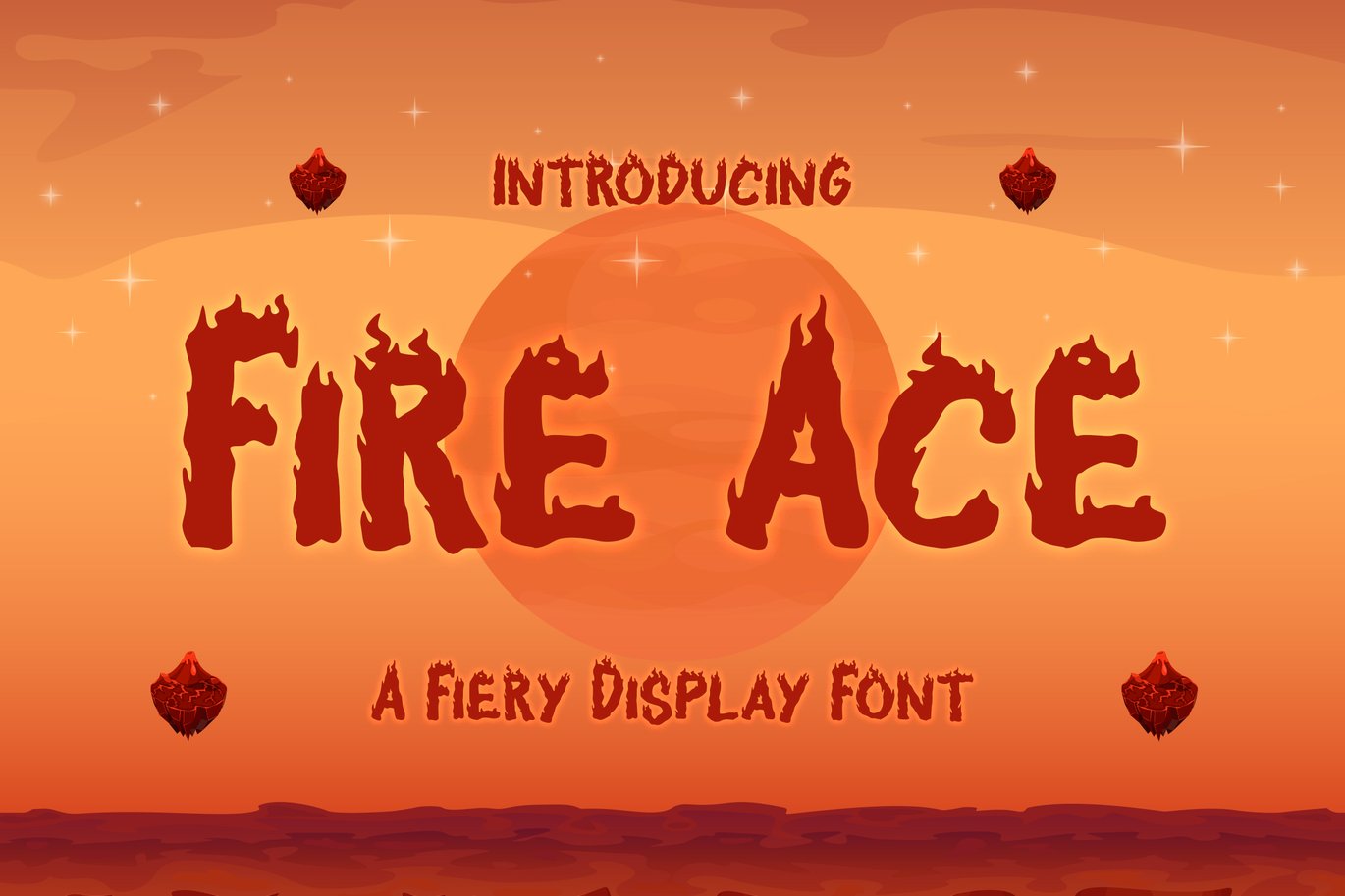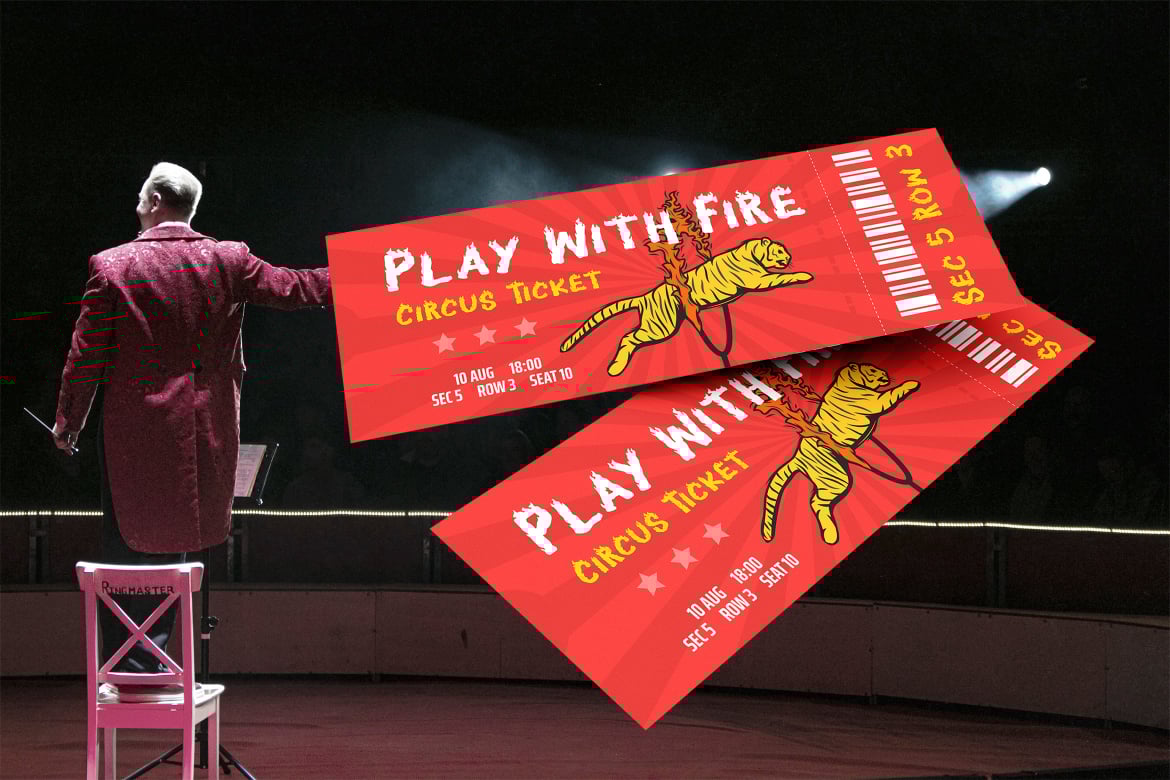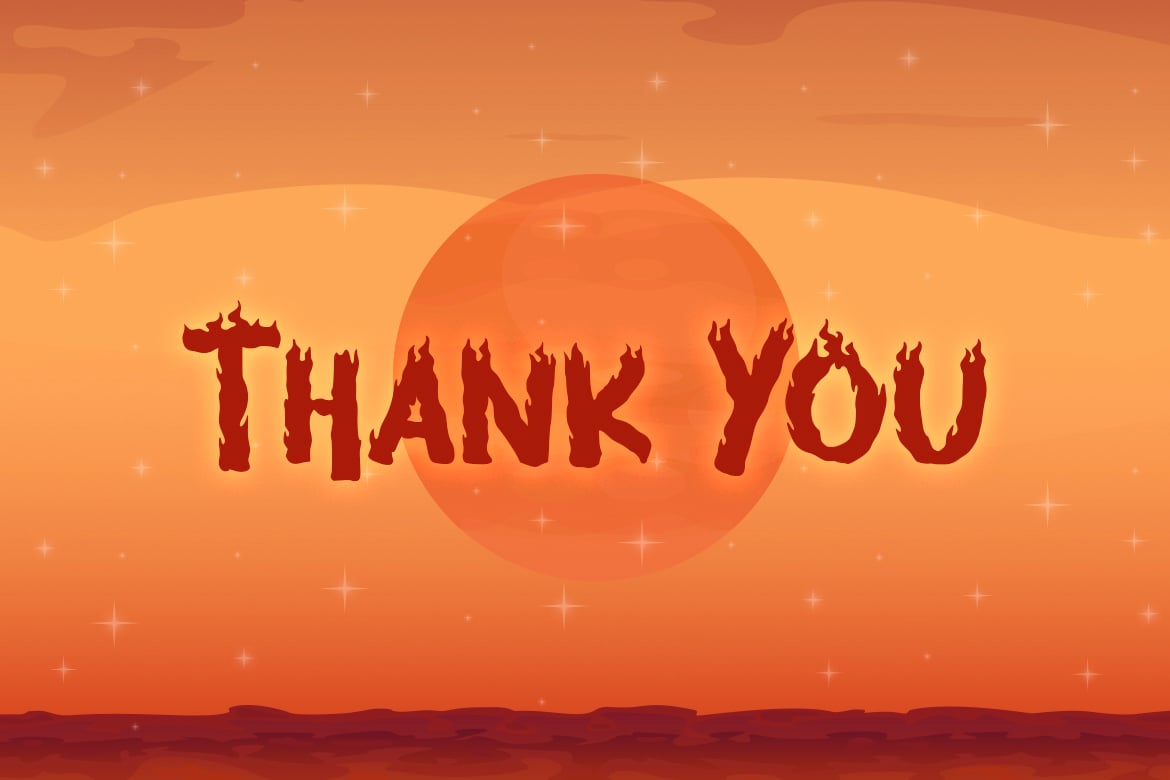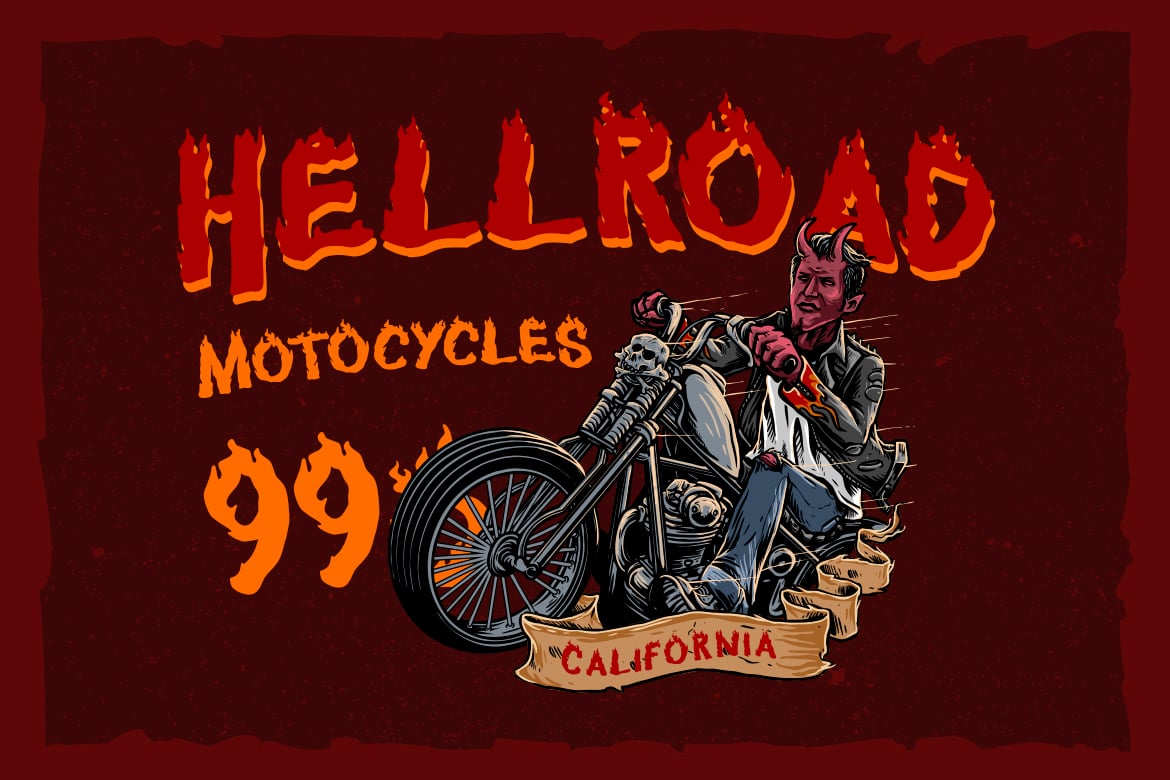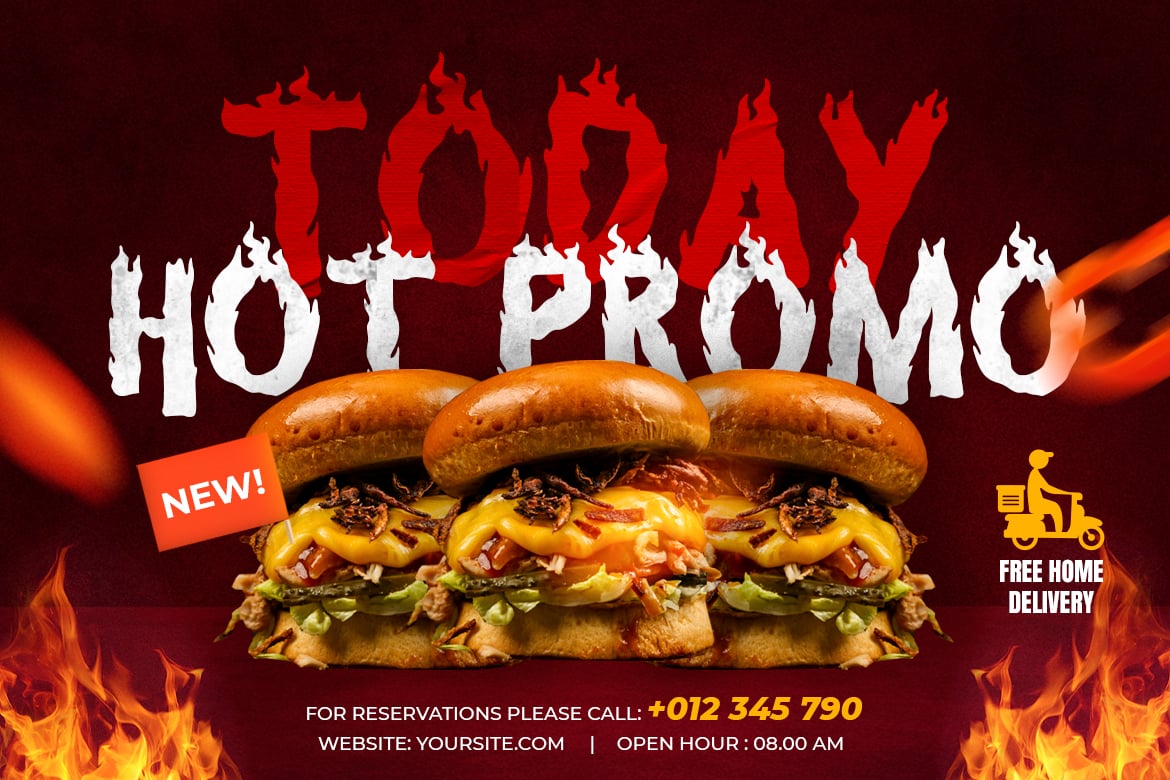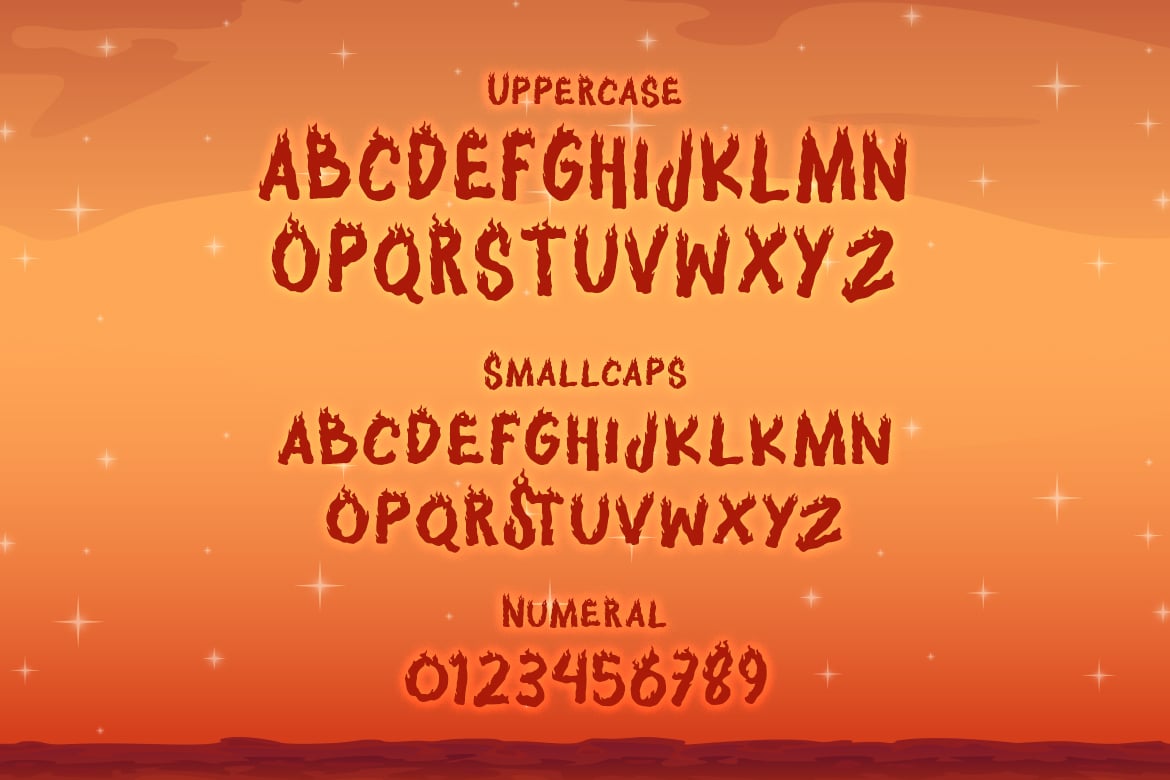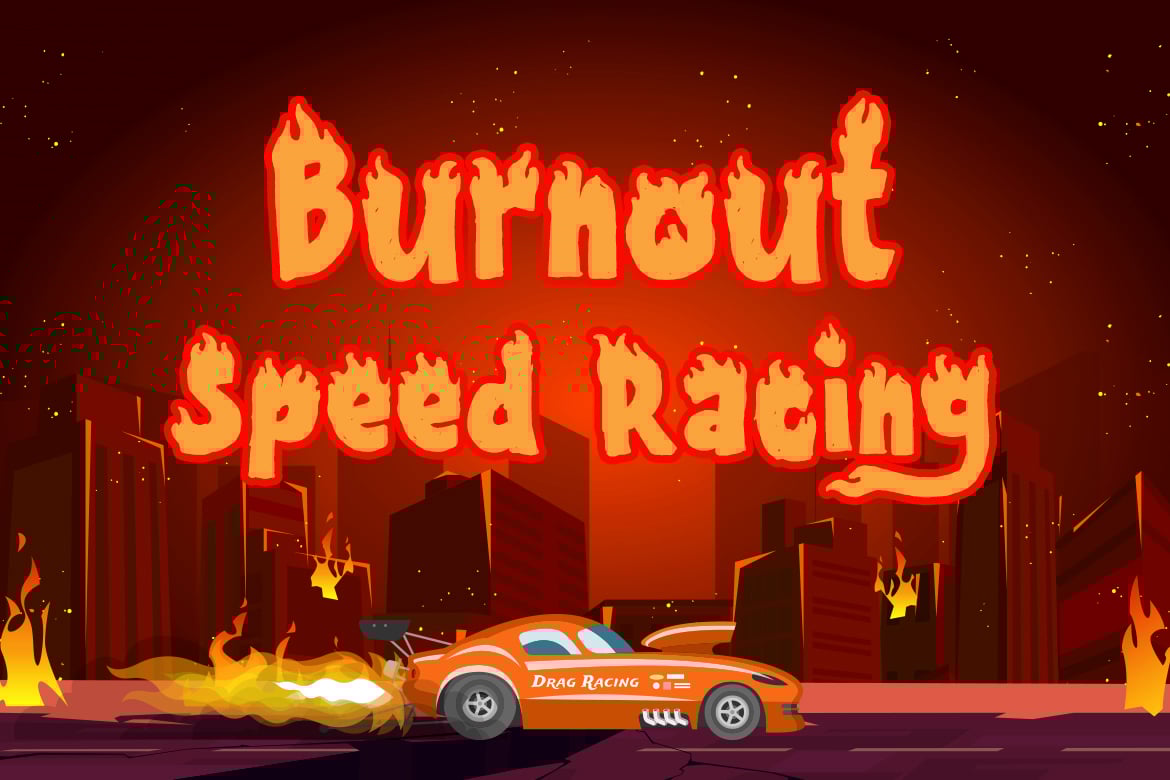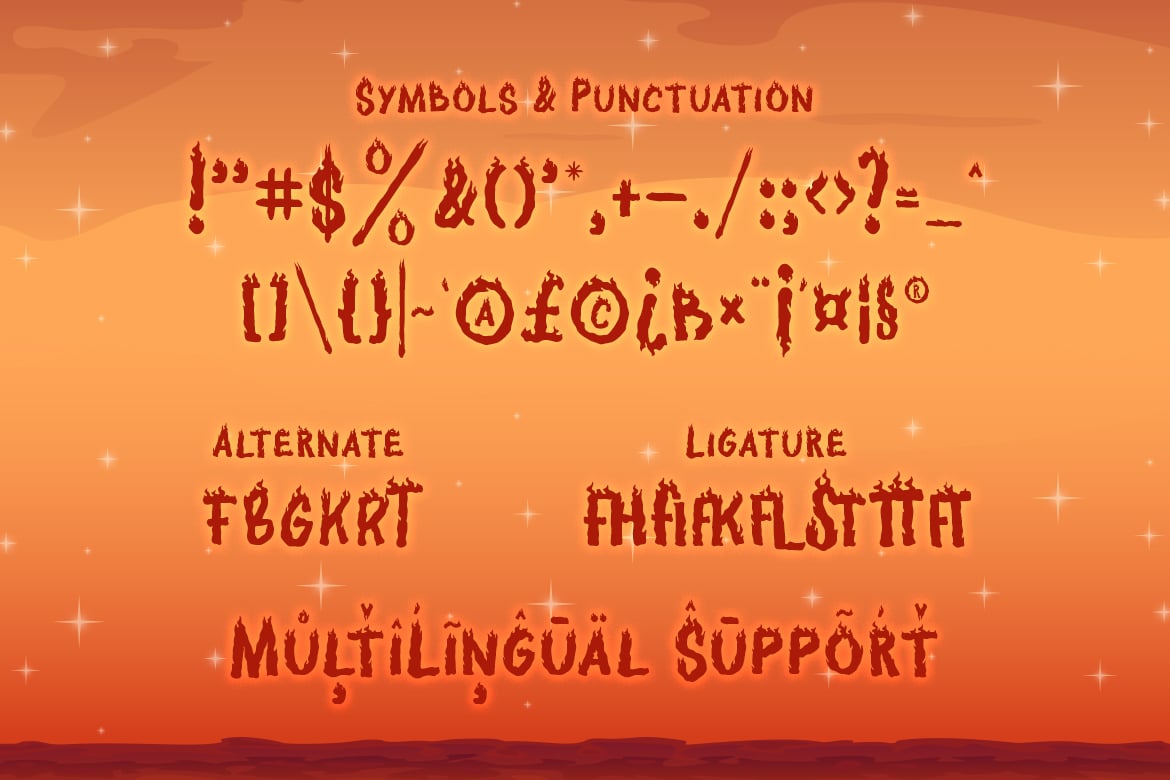
Fire Ace – A Fiery Display Font
Fire Ace is a fiery display font with incredibly hot feel.
Fire Ace has a fiery effect, it’s the perfect font for giving any design a fiery and dangerous feel, spices brand, speedy racing burnout effect or maybe spicy delicious food!